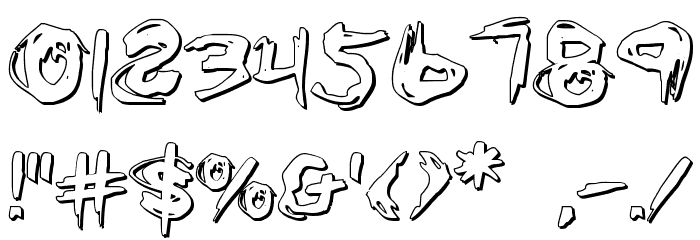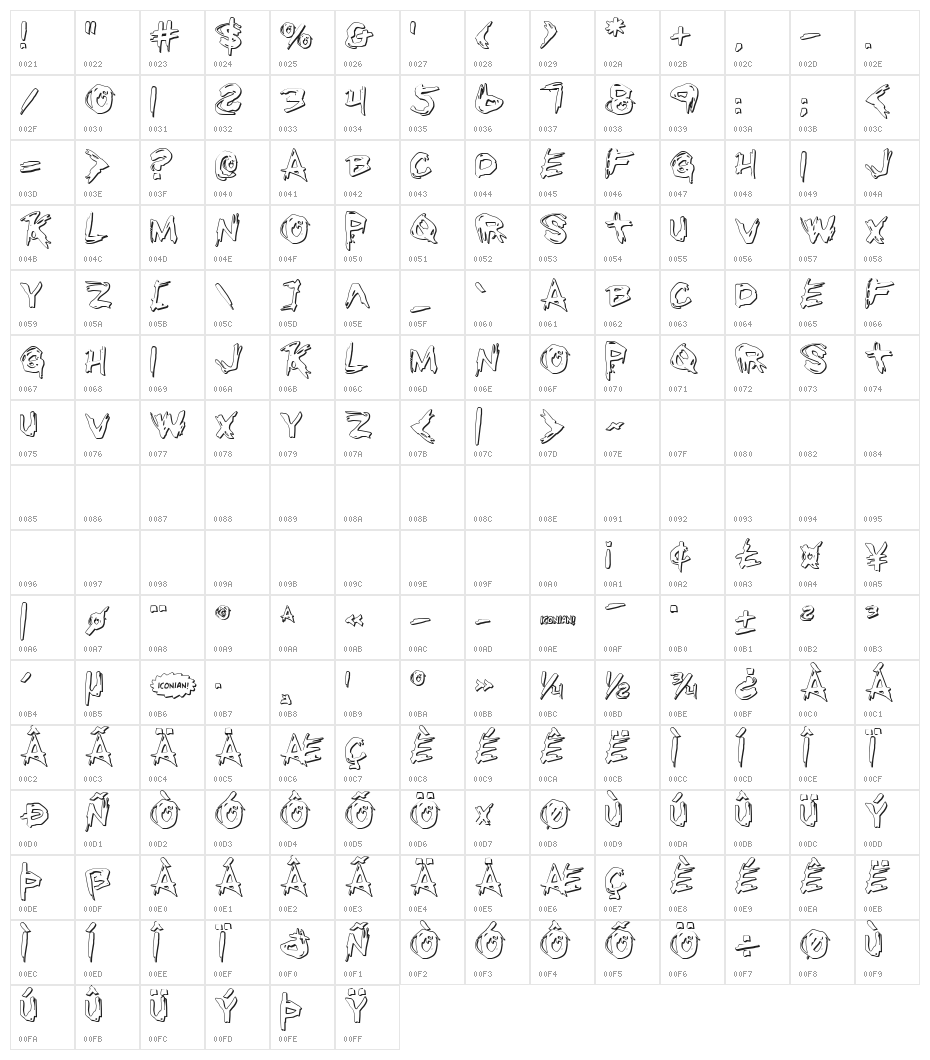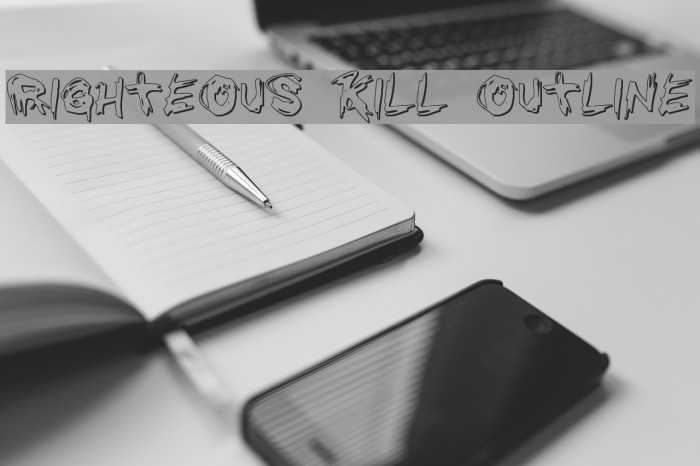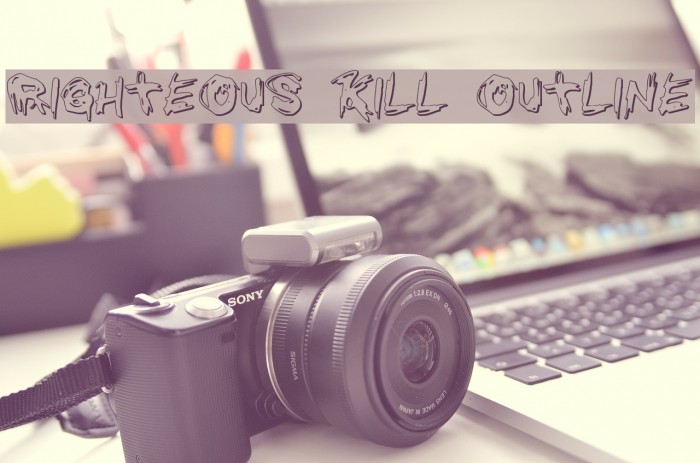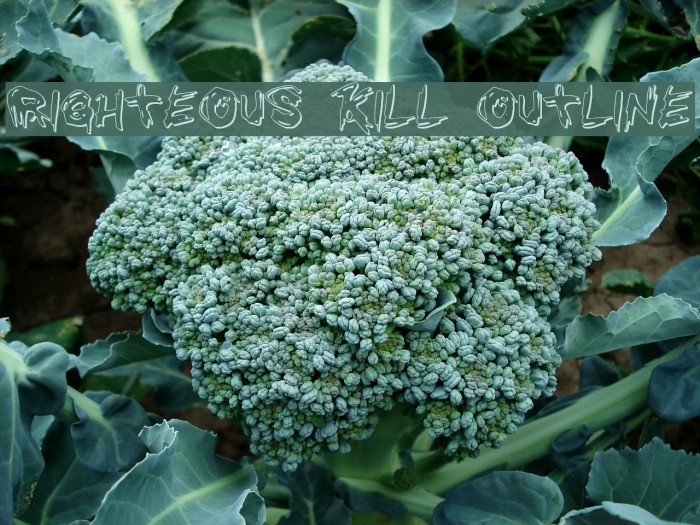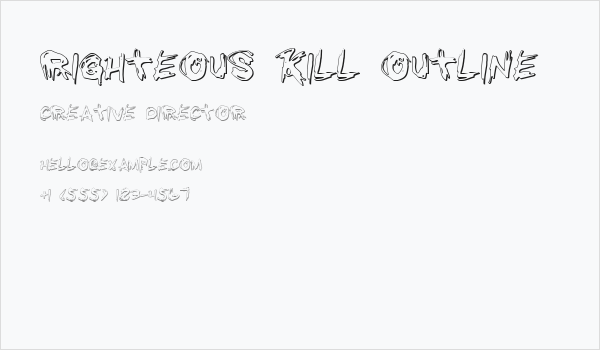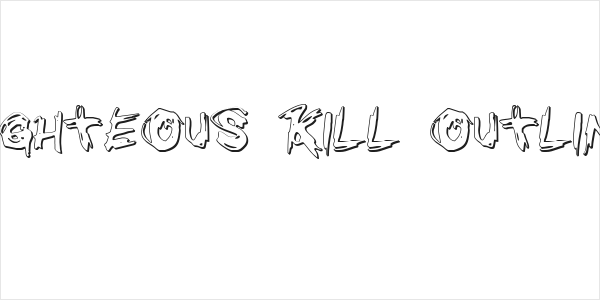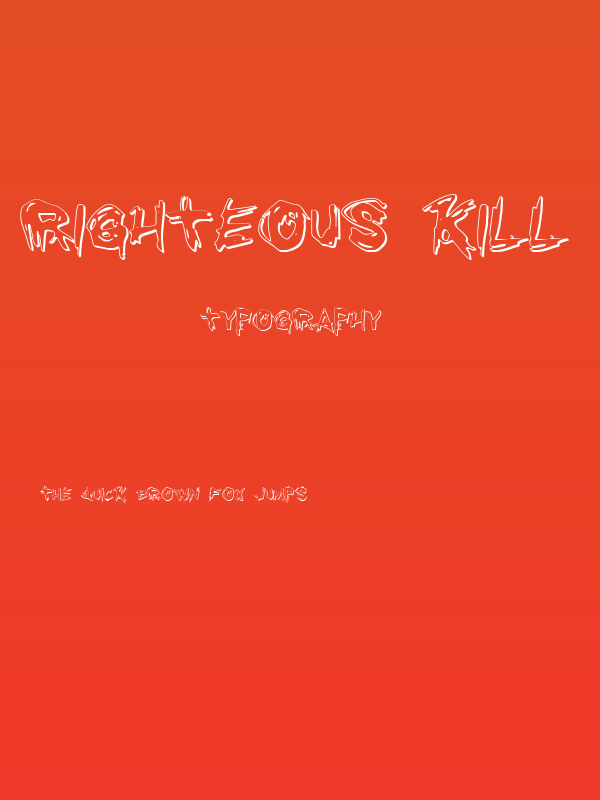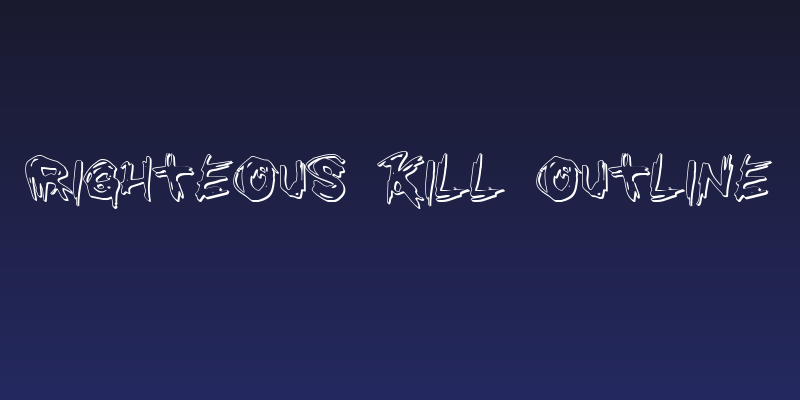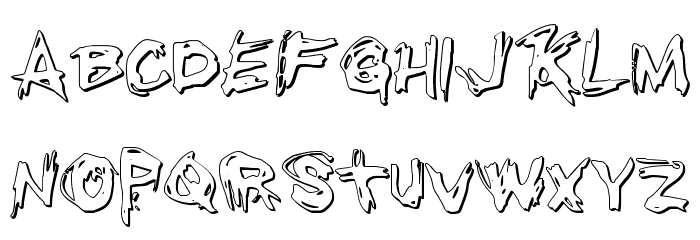
Righteous Kill Outline Font
Righteous Kill Outline Description
This font features a bold, graffiti-inspired style with an outline effect that gives it a rugged and edgy appearance. The letters are irregular and dynamic, with sharp angles and a sense of movement that suggests a rebellious, urban aesthetic. The uppercase and lowercase letters maintain a consistent style, with the numbers and special characters following suit, adding to the overall cohesive look. The font's unique design makes it stand out, ideal for projects that require a strong visual impact.
RIGHTEOUS-KILL-OUTLINE UPPERCASE
RIGHTEOUS-KILL-OUTLINE LOWERCASE
RIGHTEOUS-KILL-OUTLINE OTHER CHARS
| Overall Style | Urban, Edgy, Graffiti |
| Use Case | Headlines, Posters, Logos |
| Proposed Projects | Perfect for street art-themed designs, music album covers, posters, and urban branding projects. |